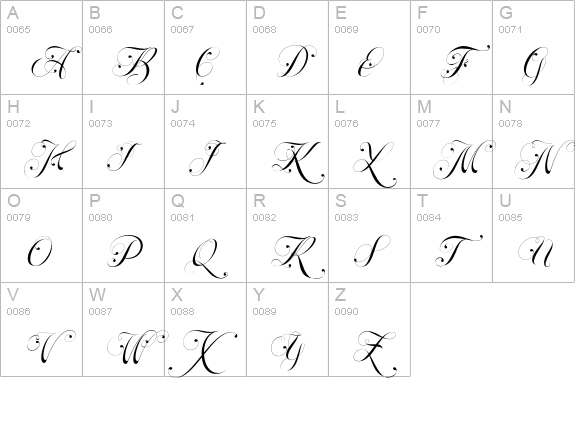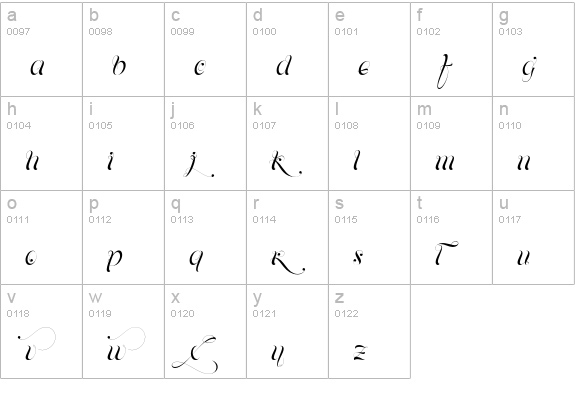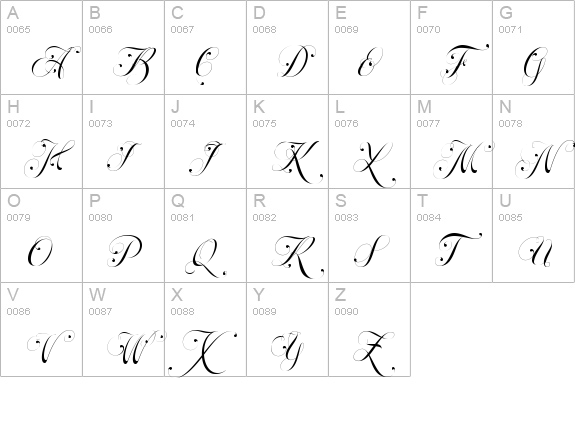
Parfait Script Stylistic Font Details
Parfait Script Stylistic font is a beautifully designed typeface that exudes elegance and sophistication. With its graceful curves and flowing lines, this font is perfect for adding a touch of class to your projects. Whether you're designing invitations, branding materials, or social media graphics, Parfait Script Stylistic font will elevate your work to the next level. What sets this font apart is its unique stylistic elements that give it a modern yet timeless appeal. The intricate details and intricate flourishes make each letter a work of art in its own right. Whether used for headlines or body text, Parfait Script Stylistic font will captivate your audience and leave a lasting impression. Best of all, Parfait Script Stylistic font is available for free download at FontsMarket.com. This means you can easily access this stunning font and use it in your projects without any cost. Don't miss out on this opportunity to enhance your designs with the beauty and sophistication of Parfait Script Stylistic font. Download it today and unleash your creativity!